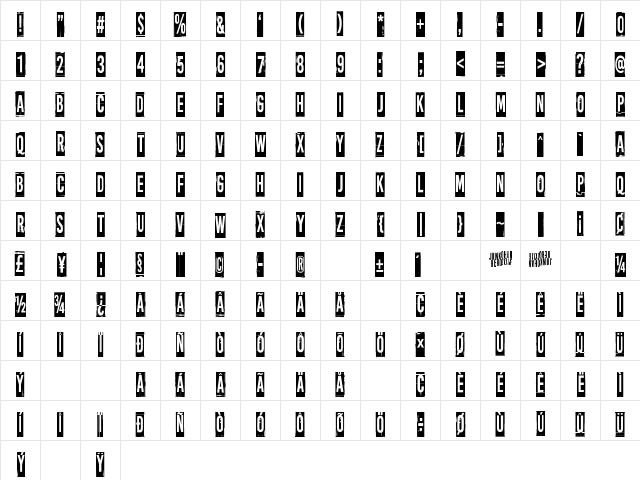
Complete More news from nowhere Regular glyph index. Displaying only characters natively supported by More news from nowhere Regular font.
More news from nowhere is a composed and adaptable typeface that performs quietly and consistently across a wide range of design contexts.